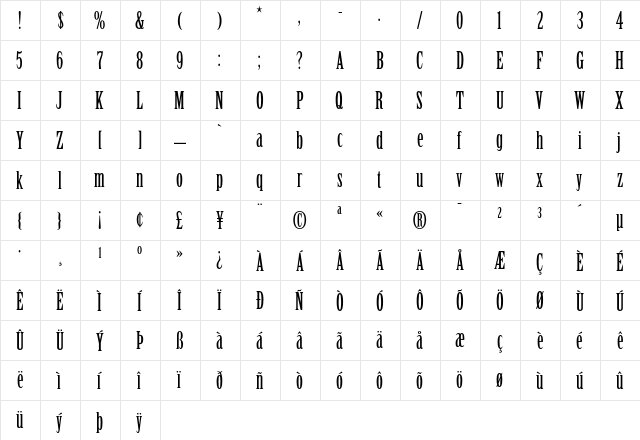
Birch Regular Font Preview
Birch Regular
Birch Regular Font Details
Design Context for Birch Typeface
Birch offers clean, dependable letterforms without strong stylistic allegiance, making it a practical choice for designers who need flexibility.